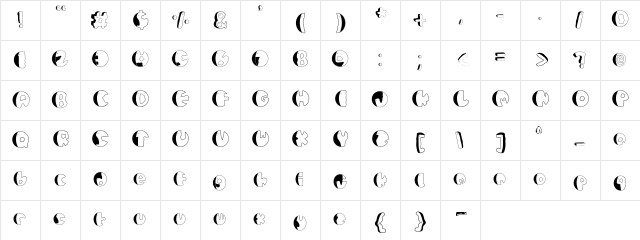
Pisang Ijo Regular
Design Context for Pisang Ijo Typeface
Pisang Ijo is a composed and adaptable typeface that performs quietly and consistently across a wide range of design contexts.